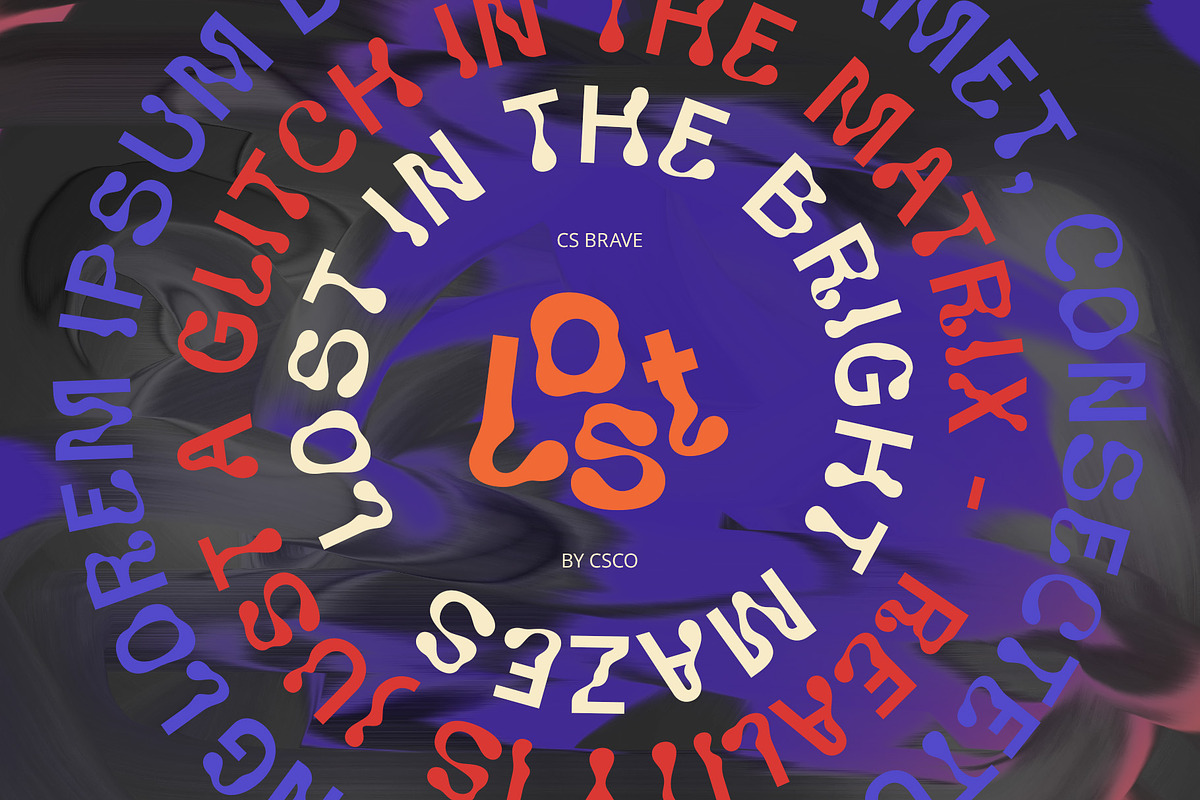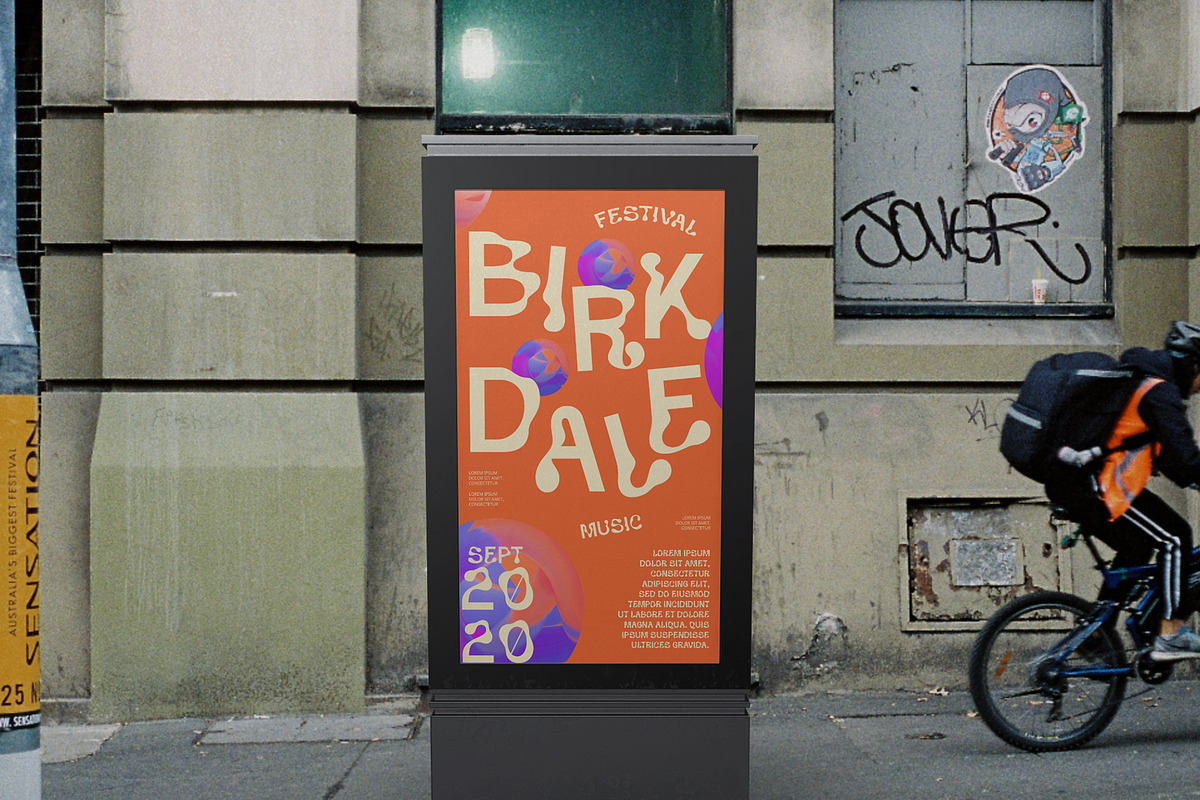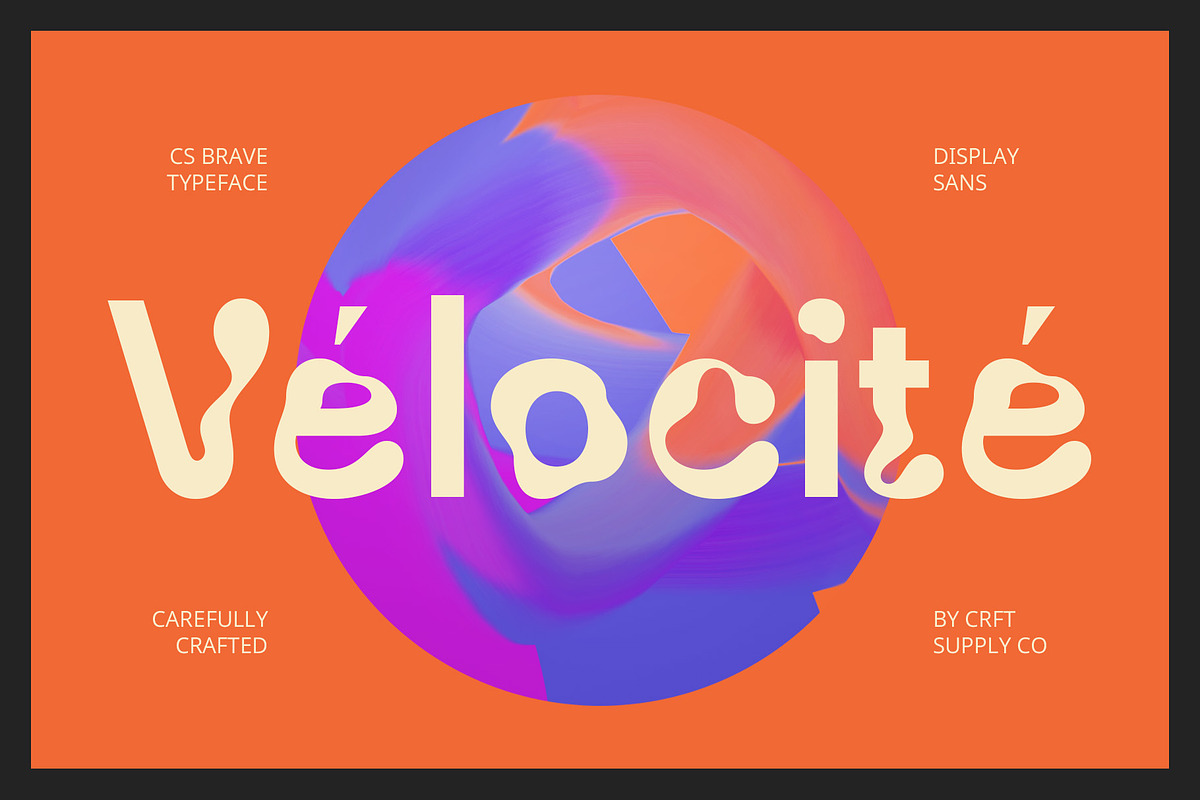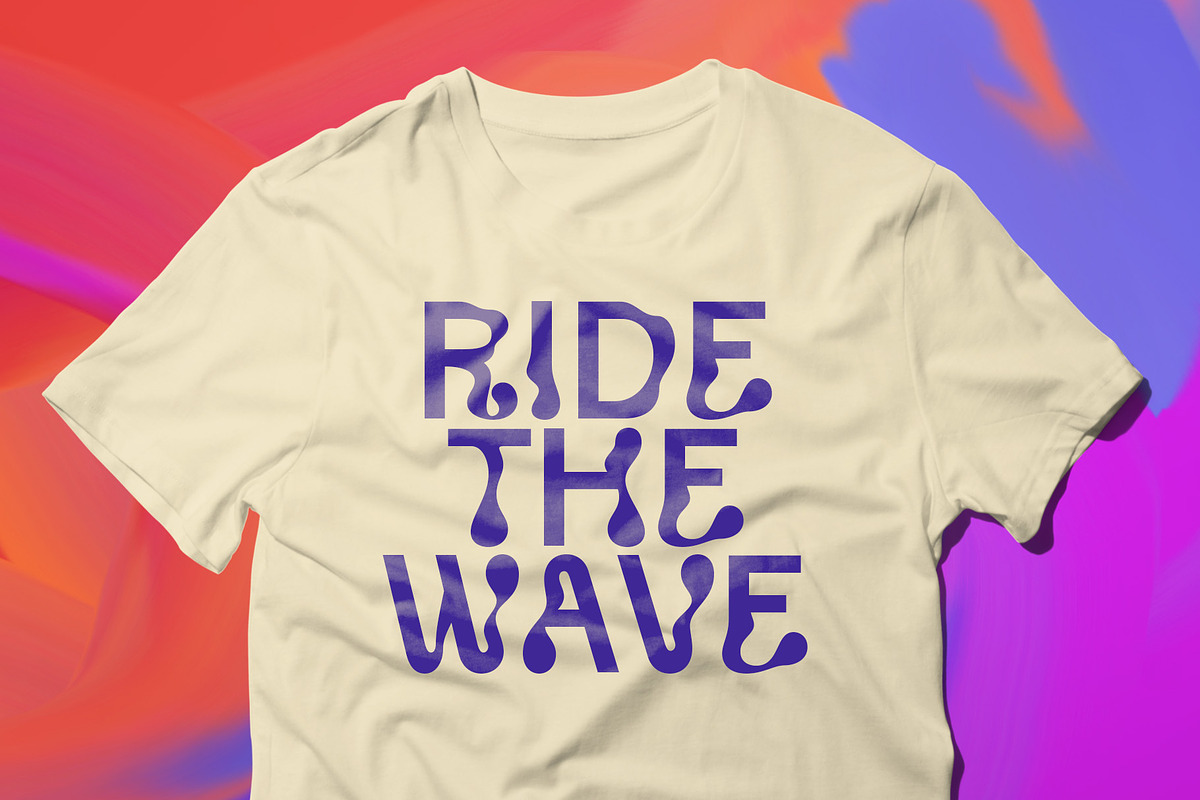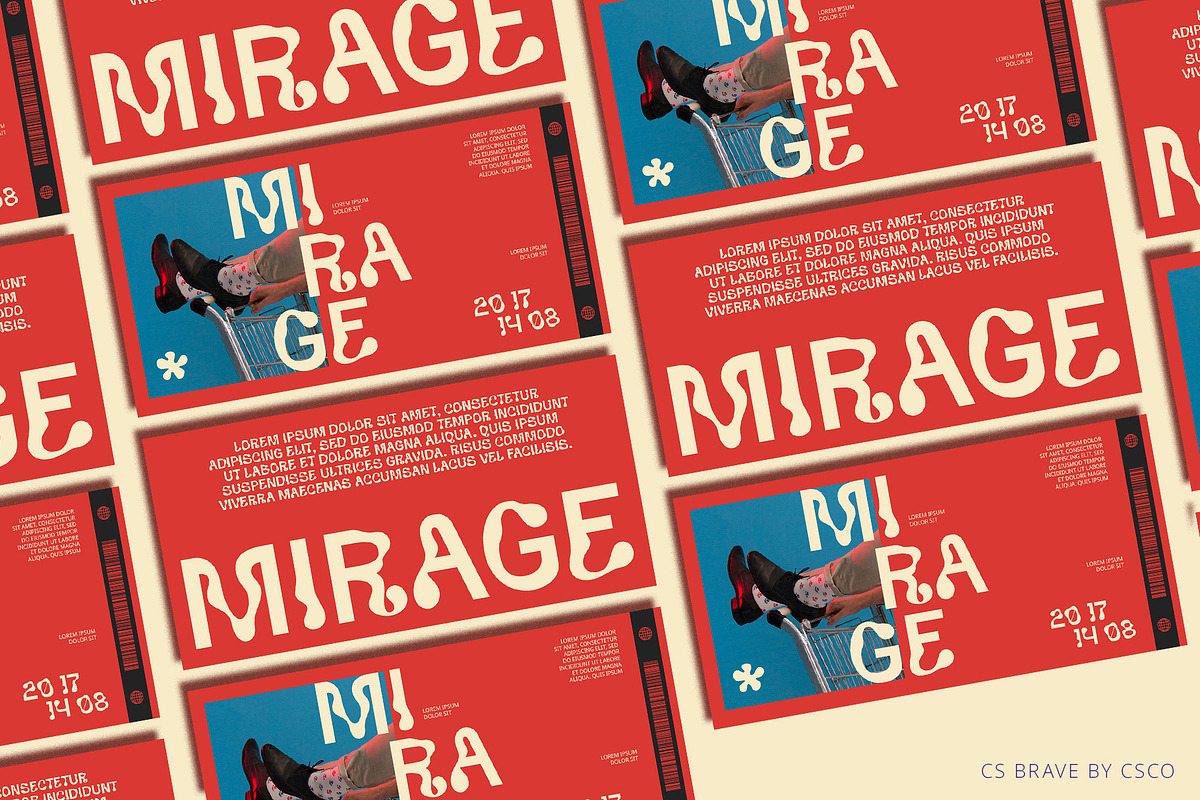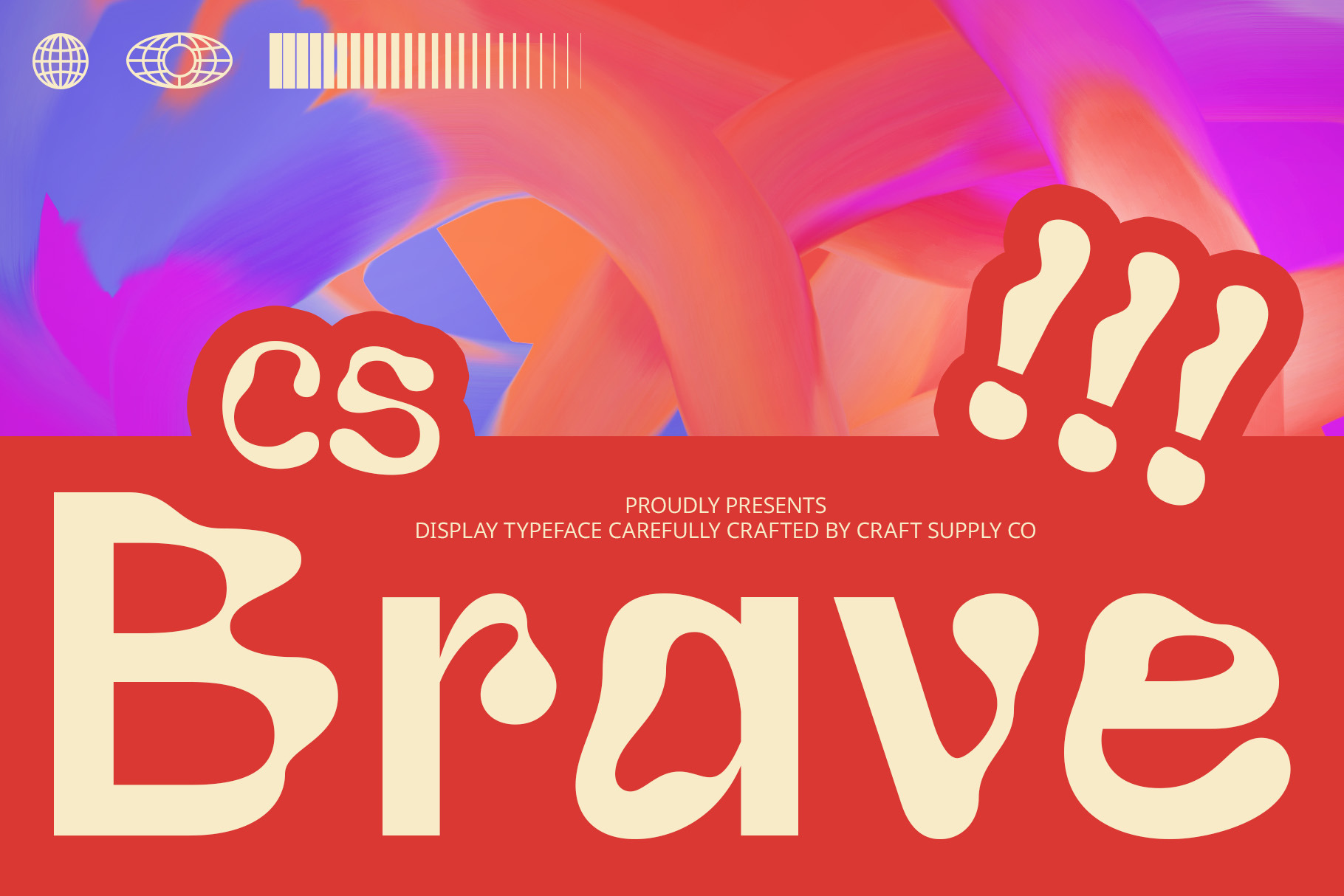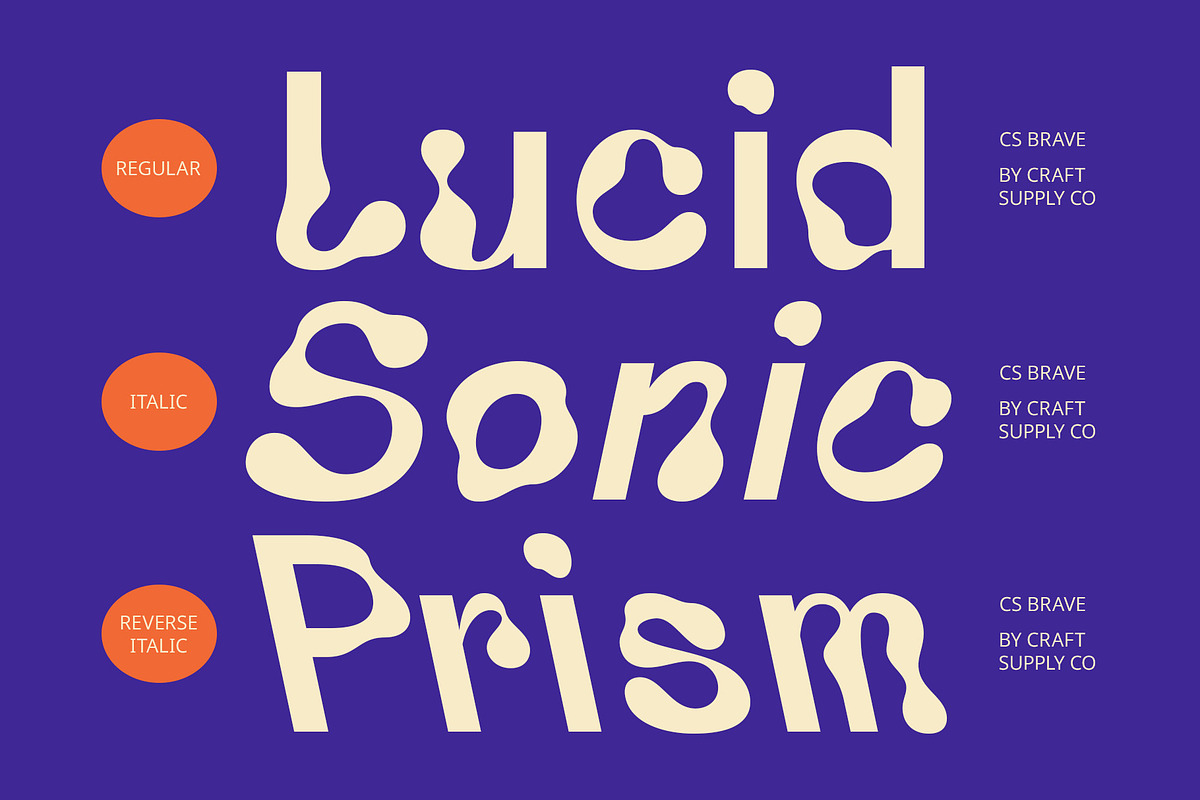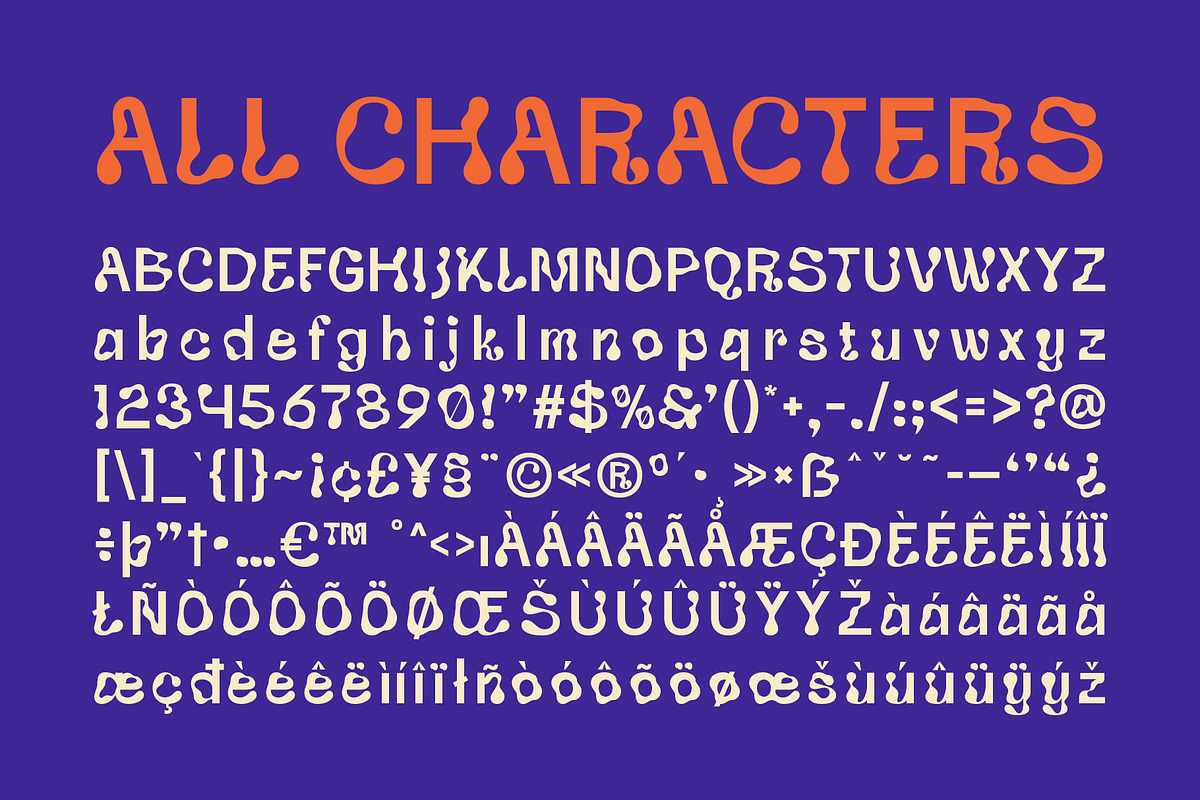
CS Brave – Trippy Font
CS Brave – Trippy Font: Psychedelic Vibrancy with Captivating Design
Psychedelic Display Font with Vibrant Shapes CS Brave – Trippy Font is a striking display typeface that embraces a psychedelic aesthetic with its highly vibrant and eye-catching design. Featuring curved, wavy, and distorted forms, this font creates captivating visual effects that reflect the dynamic art and culture of the 1960s and 70s.
Dynamic and Expressive Appearance With its unconventional and expressive shapes, CS Brave captures the essence of psychedelic design. The font’s bold and funky aesthetic ensures it stands out, making it perfect for projects that aim to attract attention and celebrate creativity. Its unique appearance adds a touch of playful dynamism to any design.
Ideal for Attention-Grabbing Designs CS Brave is ideal for a variety of applications where bold visual impact is essential. Whether you’re designing music posters, art event promotions, or advertising campaigns, this font offers a distinctive and engaging look that highlights creativity and makes a memorable impression.
Versatile for Creative and Bold Projects The trippy, psychedelic style of CS Brave provides versatility for projects that require standout visual elements. Its vibrant and unconventional design ensures your work captures attention and evokes a sense of fun and artistic flair, making it a perfect choice for any creative endeavor that demands a bold and dynamic presentation.
- CS Brave Regular
- CS Brave Italic
- CS Brave Reverse Italic